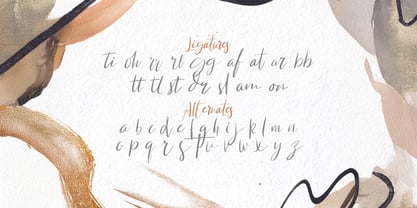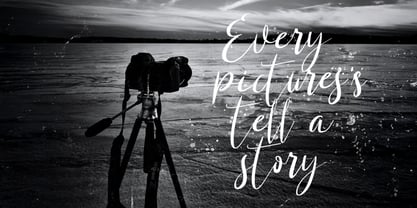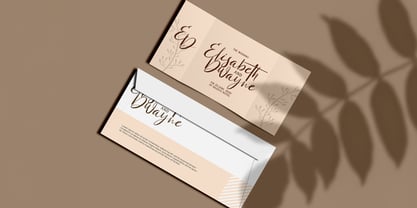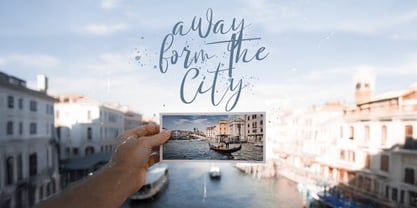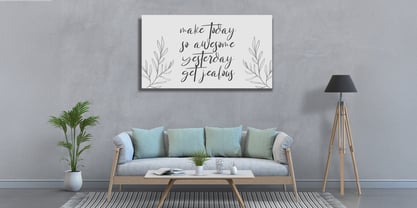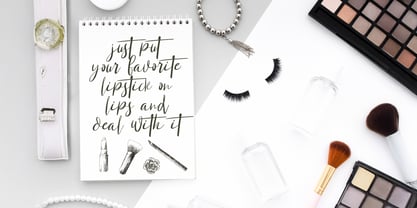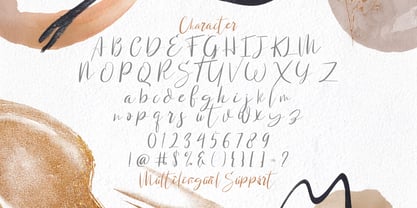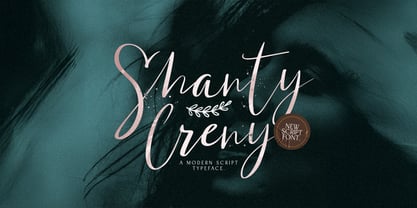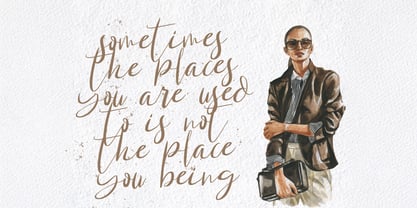
Shanti Creny
by Stringlabs Creative Studio
The Shanti Creny Font Family was designed by Virgiawan Listanto and published by Stringlabs Creative Studio. Shanti Creny contains 1 styles.
Shanti Creny is a beautifully crafted modern script font that combines contemporary style with fluid elegance. With its smooth, flowing curves and sleek design, this font is perfect for adding a personal, yet refined touch to your creative projects.